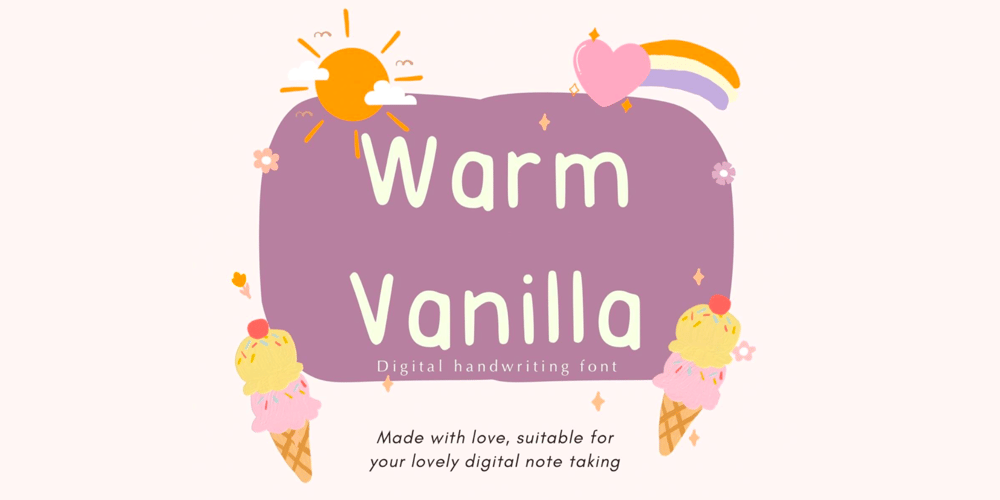
Warm Vanilla
Warm Vanilla font
Warm Vanilla Font Family was designed by Thitawan Noenpoempisut and published by The Gelato. Warm Vanilla contains 1 styles and family package options. The warm Vanilla font is a very neat handwritten font that gives a cute and tidy note-taking style! It conveys relaxation and high readability. It offers support for all the characters in English, Italian, Spanish, French, and German as well as standard punctuation glyphs. It is perfectly suitable for numerous use such as quotations, banners, logos, product packaging, titles, headers, menu lists, and even for digital note-taking!